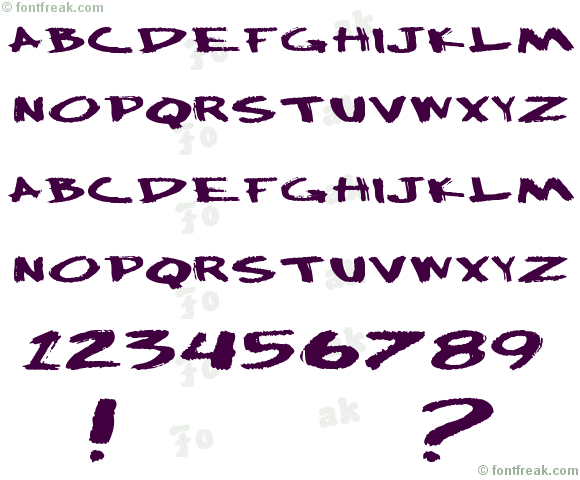
BigBubba
About BigBubba
BigBubba, designed by Marty Bee, is a striking display font that embodies a bold and energetic spirit. This font falls into the decorative category, characterized by its expressive brush-style strokes that create a dynamic visual impact. The stroke weight varies dramatically, giving it a lively feel, while the uneven edges and splatters add a handcrafted touch that enhances its artistic appeal. The spacing is generous, allowing each letter to stand out, making it ideal for attention-grabbing headlines and titles.
BigBubba's unique style makes it a versatile choice for various applications. It is perfect for wedding invitations, where its playful yet elegant nature can set the tone for a joyous celebration. Additionally, it works well on movie posters, providing a sense of excitement and drama. Restaurant menus can benefit from BigBubba as well, as it adds an inviting flair that entices customers. Content creators will find this font especially useful for social media graphics, where its boldness can capture the audience's attention. Small business owners looking to create memorable branding materials will also appreciate its distinctiveness.
Targeting graphic designers, small business owners, and content creators, BigBubba offers a fresh alternative to more traditional font choices. Its whimsical character and modern aesthetic make it appealing to a wide range of users seeking to differentiate their designs.
What truly sets BigBubba apart is its ability to blend fun with functionality. The font radiates personality while remaining highly legible, ensuring that your message is both impactful and clear. With a BigBubba font free download available, you can easily incorporate this standout typeface into your next project and elevate your design to new heights.
Author Marty Bee